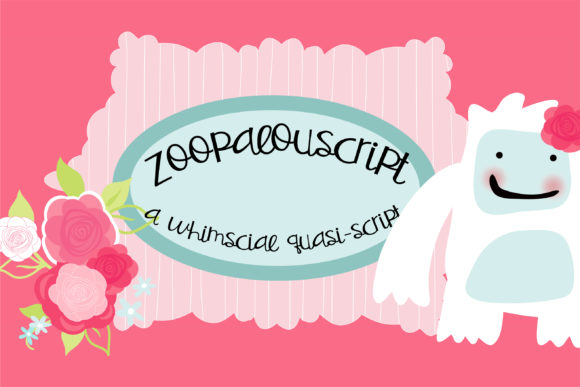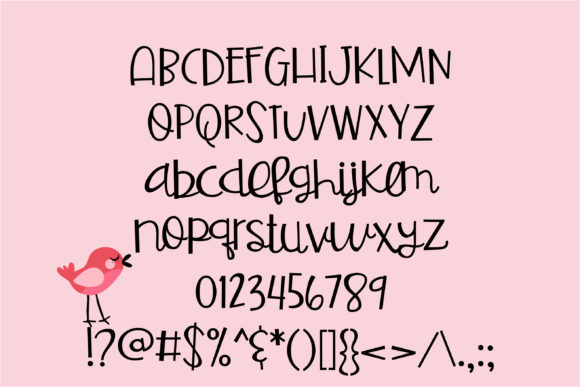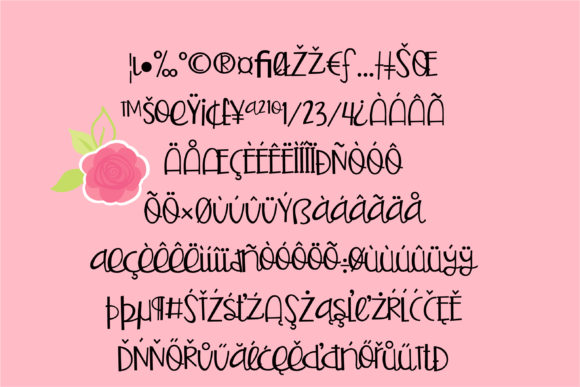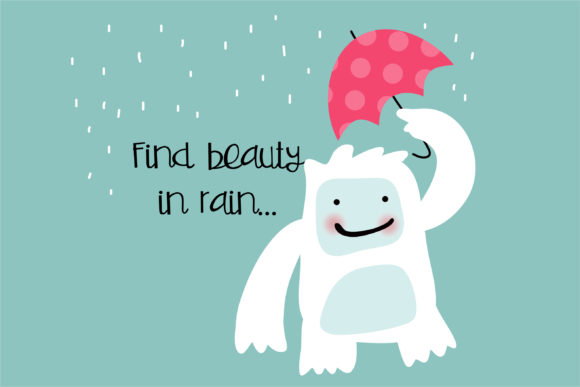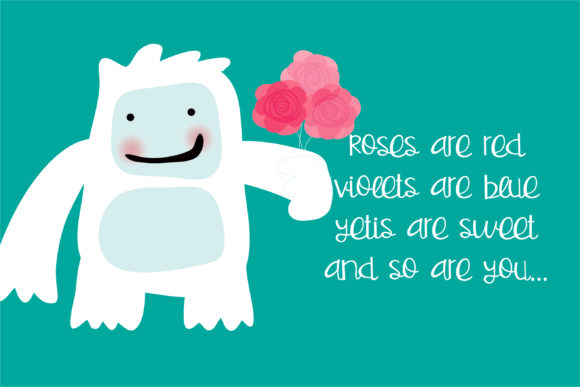
HomeScript FontsZoopalouscript Font Script Fonts Zoopalouscript Font FacebookXPinterestWhatsApp Zoopalouscript Font Poster 2 Zoopalouscript Font Poster 3 Zoopalouscript Font Poster 4 Zoopalouscript Font Poster 5 About Zoopalouscript Font This casual hand-crafted quasi-script, has stiffly, upright lettering and a whimsical feel to it. DOWNLOAD NOW People also explored Almost Font Paradise Font Strategy Game Font Gineso Titling Be Happy Forever Font Madalyn Font Depita Font Amour Script Font Ornaments Font 327 0 TagsZoopalouscript Font Previous articleSnickerdooscript FontNext articleStormbiter Font LEAVE A REPLY Cancel reply Comment: Please enter your comment! Name:* Please enter your name here Email:* You have entered an incorrect email address! Please enter your email address here Website: Save my name, email, and website in this browser for the next time I comment. Personal Use Free Anders Personal Use Free Read more about this font Mowgli Personal Use Free Read more about this font Baby Mollusca Personal Use Free Read more about this font Fontmageddon Personal Use Free Read more about this font BLOG Transform Your Website: Elevate Your Typography with 7 Best Web Font Generators Are you ready to transform your website's typography from ordinary to extraordinary? Great! Today, we're diving into the world of web font generators, which... Top 10 Handwritten Fonts That Elevate Your Designs 5 Fonts That Will Dominate Design Trends in 2026 How to Cut Any Font on Cricut: Convert a Font to SVG (Free)